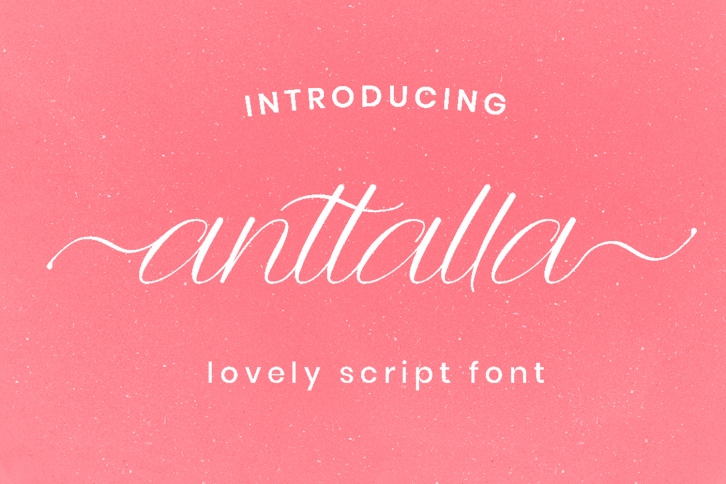
Anttalla script is a gorgeous font that was realeased on August 28, 2019. The font can be used in many style contexts and design environments. Perfect for invitations, magazines, websites, logos, and more! It was designed by Attype Studio and the file size is 1.16 MB. Thanks for checking out this font!